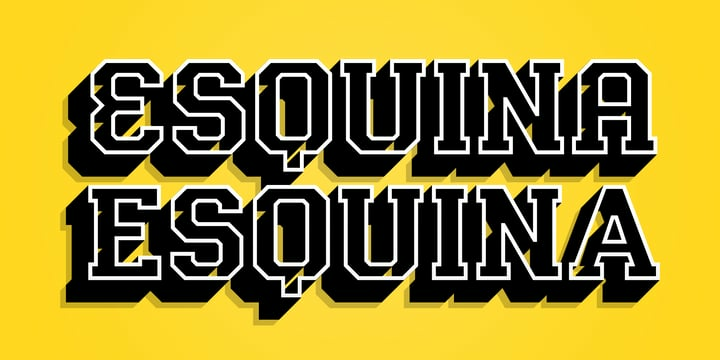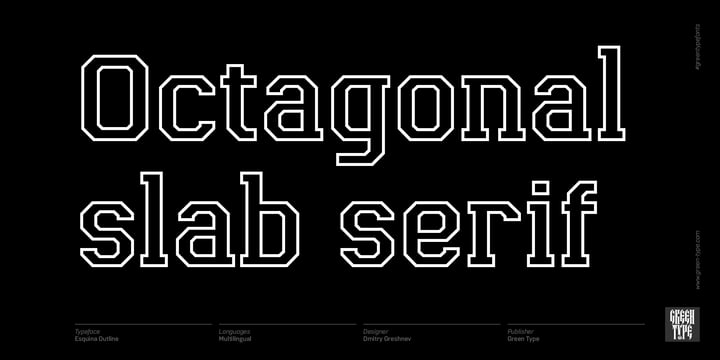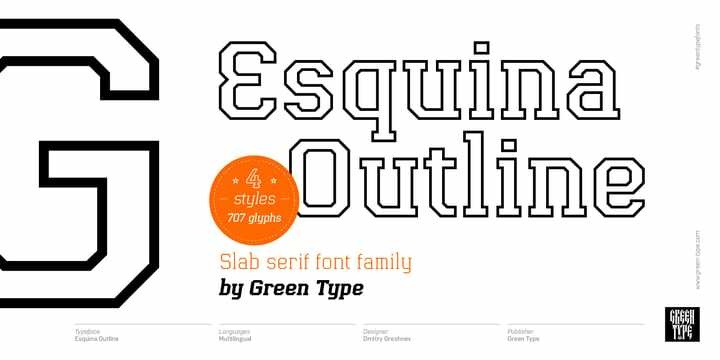
Esquina Outline Font Family
Esquina Outline Font FamilyEsquina Outline is a family of octagonal slab serif fonts. Designed for use in outdoor advertising, branding, packaging. Esquina Outline is also ideal for sports related materials such as team logos, flyers, posters and more.
Esquina Outline contains Latin, Cyrillic and Greek glyphs.